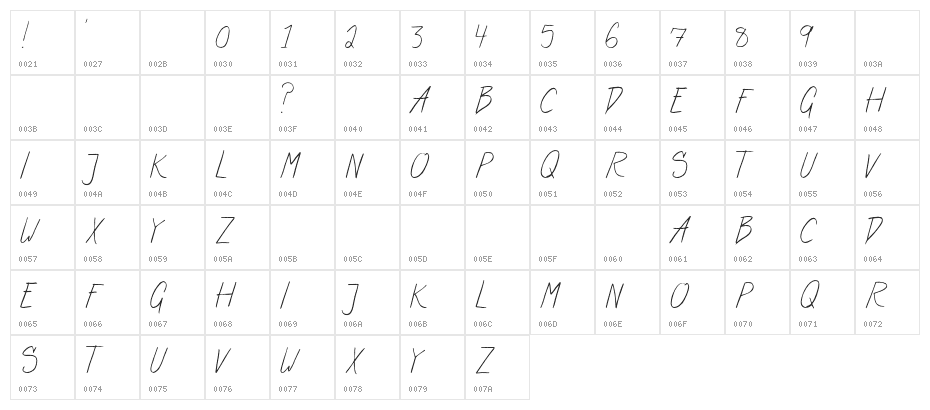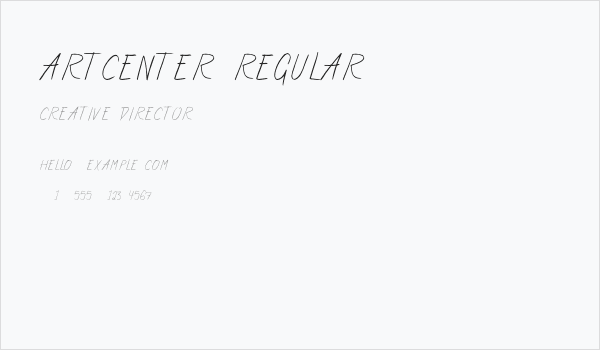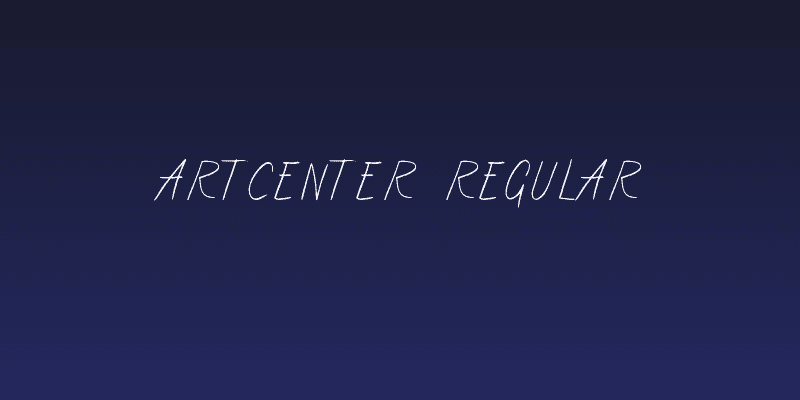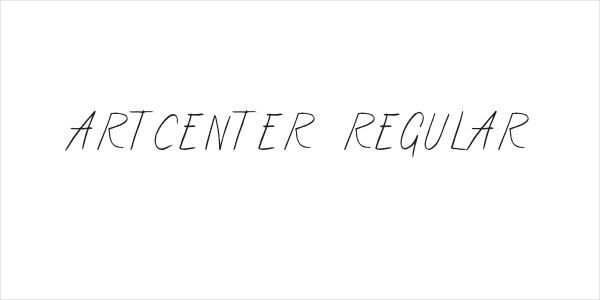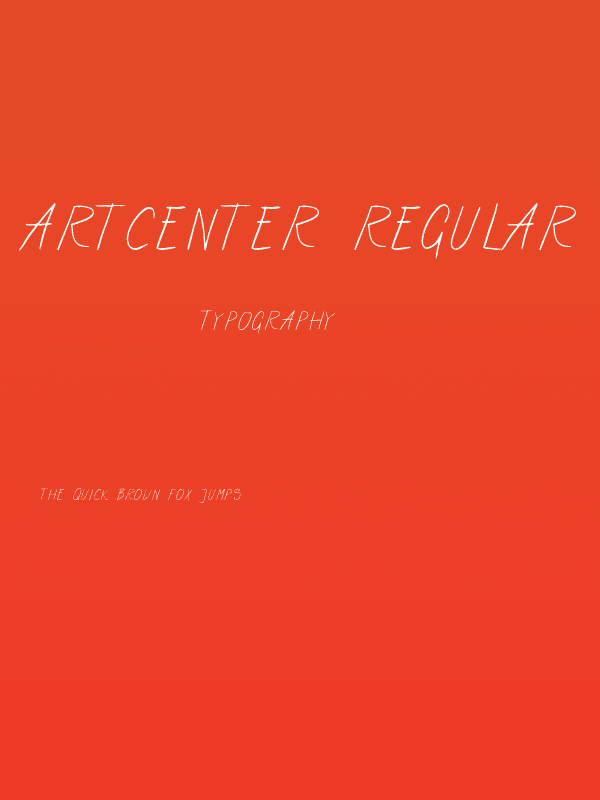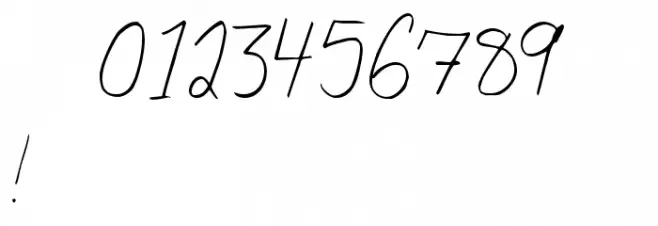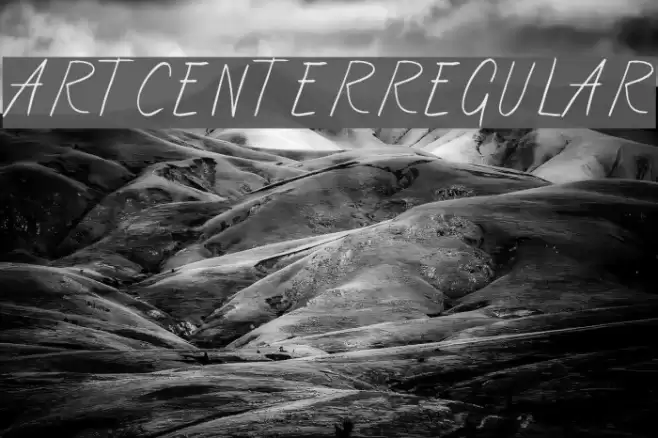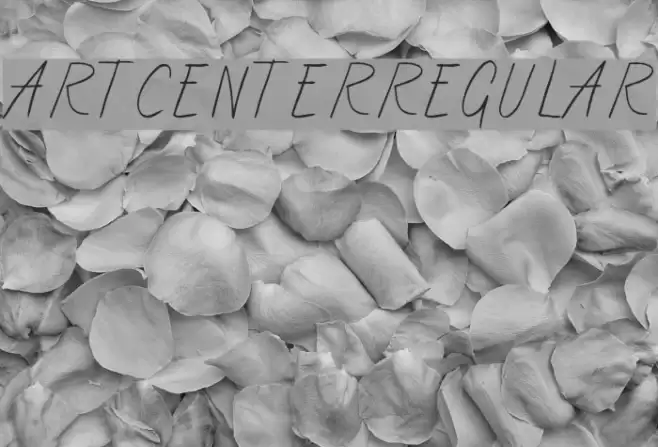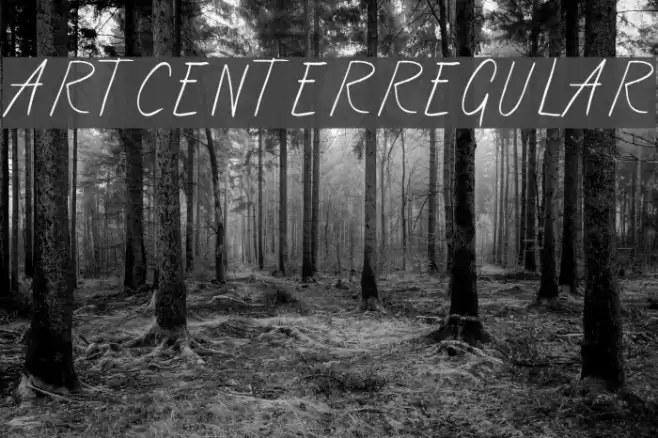
ArtCenter-Regular Font
ArtCenter-Regular Description
This font exhibits a handwritten style with a casual and flowing appearance. The characters are slightly slanted, giving it a dynamic and lively feel. The strokes are consistent in thickness, providing a uniform look across all characters. The uppercase and lowercase letters maintain a cohesive style, with smooth curves and sharp angles that enhance its legibility. The numerals are clear and distinct, matching the overall aesthetic of the alphabet. This font is versatile, suitable for projects that require a personal touch or an informal tone.
| Use Case | Headlines, Invitations, Personal notes |
| Proposed Projects | Ideal for greeting cards, personal letters, creative posters, and informal branding. |